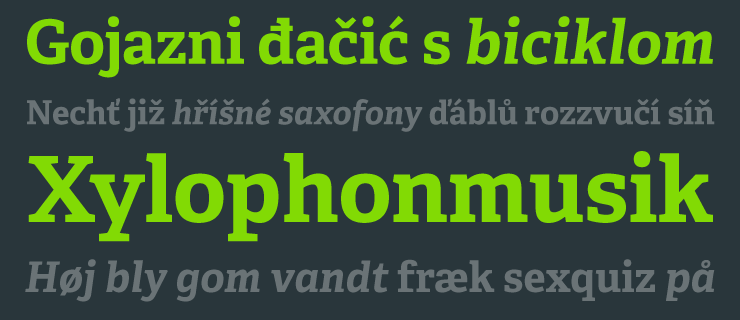
Adelle Basic
DateFebruary 2012 | Adelle is a dynamic slab serif designed by Veronika Burian and José Scaglione. While it is conceived specifically for intensive editorial use, its personality and flexibility make it a real multiple-purpose typeface. The OpenType Basic version, full commercial licence, of Adelle Bold and Bold Italic can be downloaded free of charge. These two fonts are also provided for free for web usage by our trusted partner Typekit. Click here to go to download page. Use code 872821f. | |